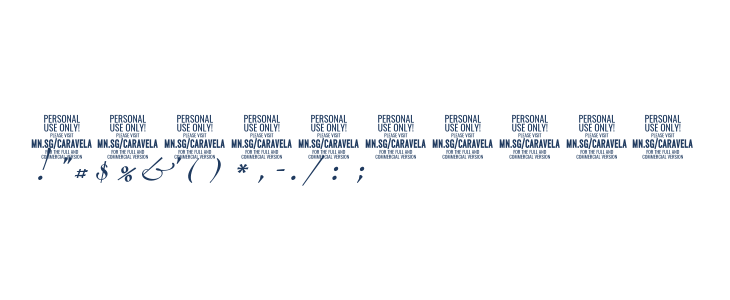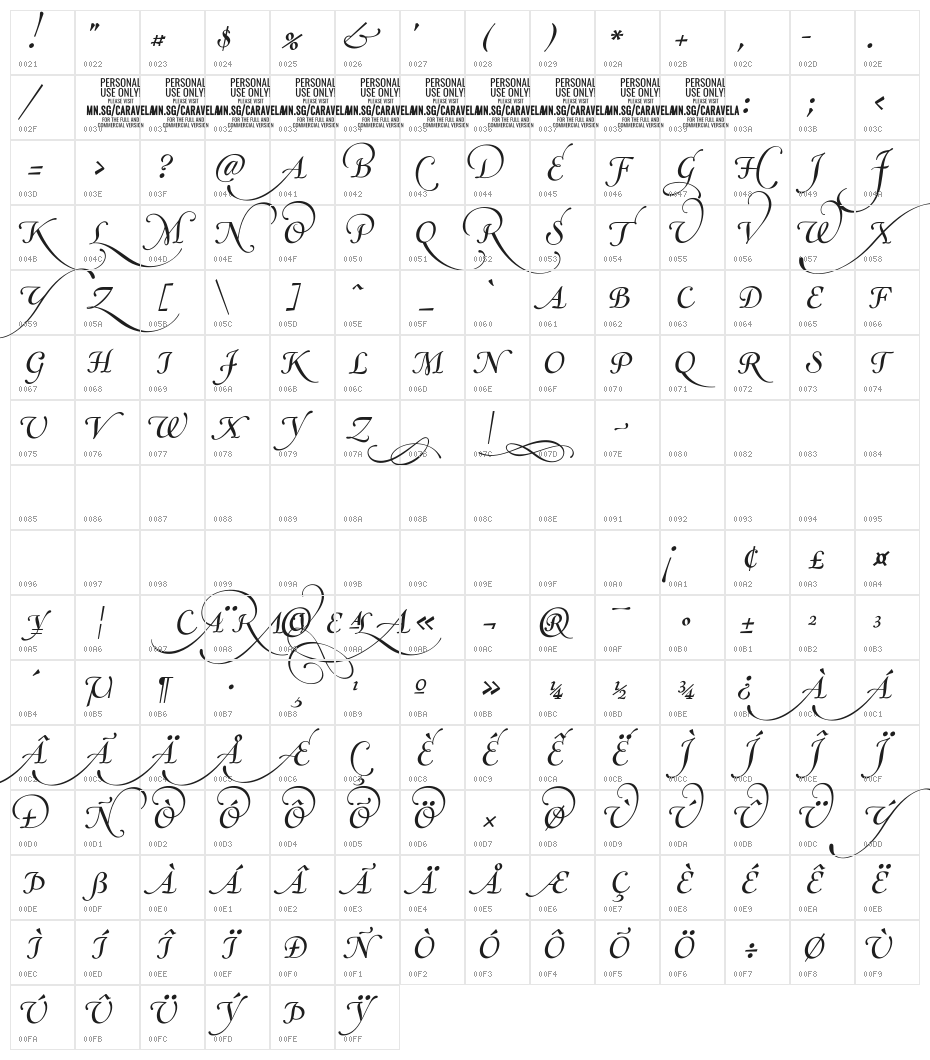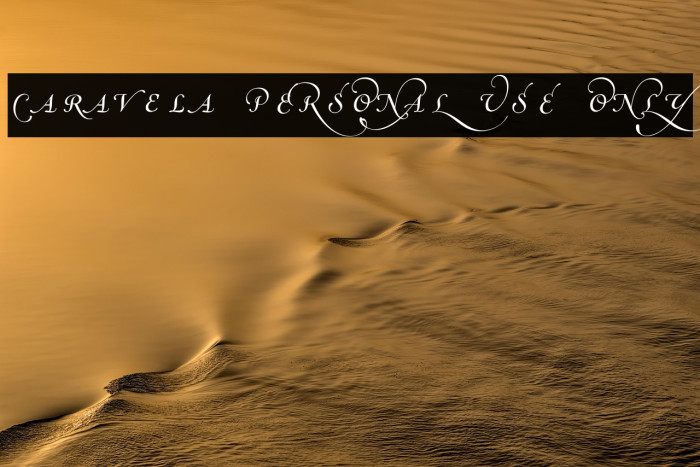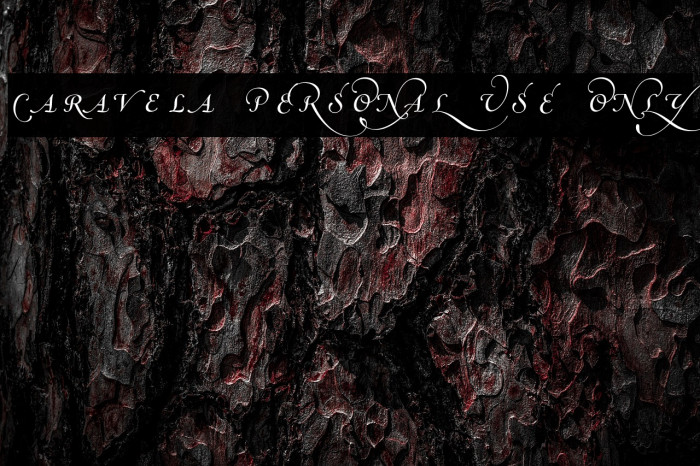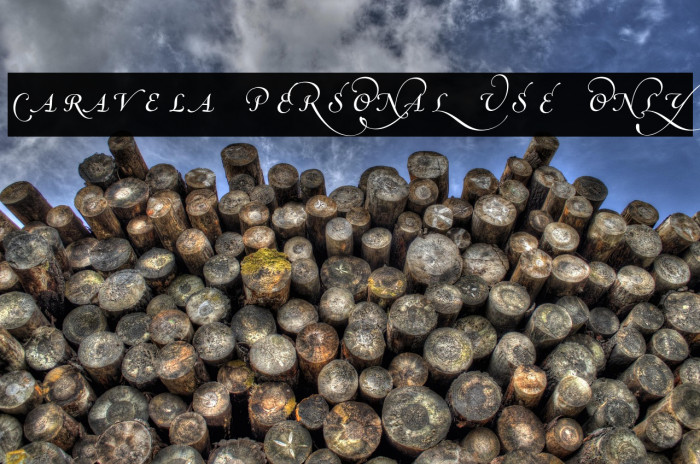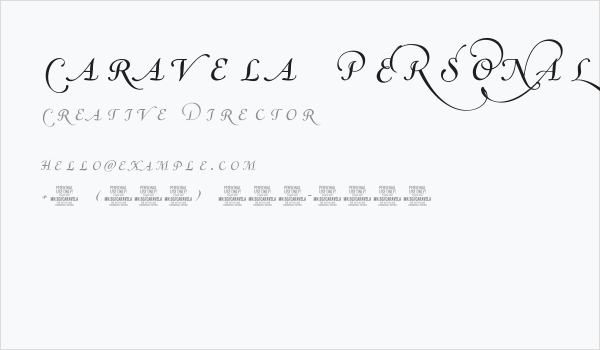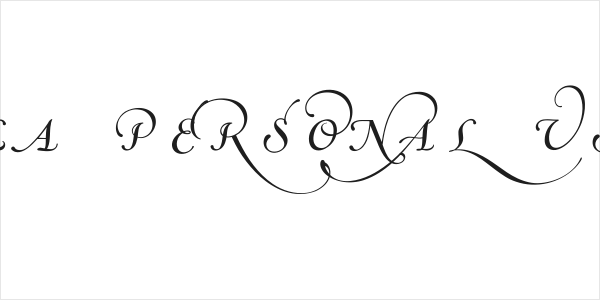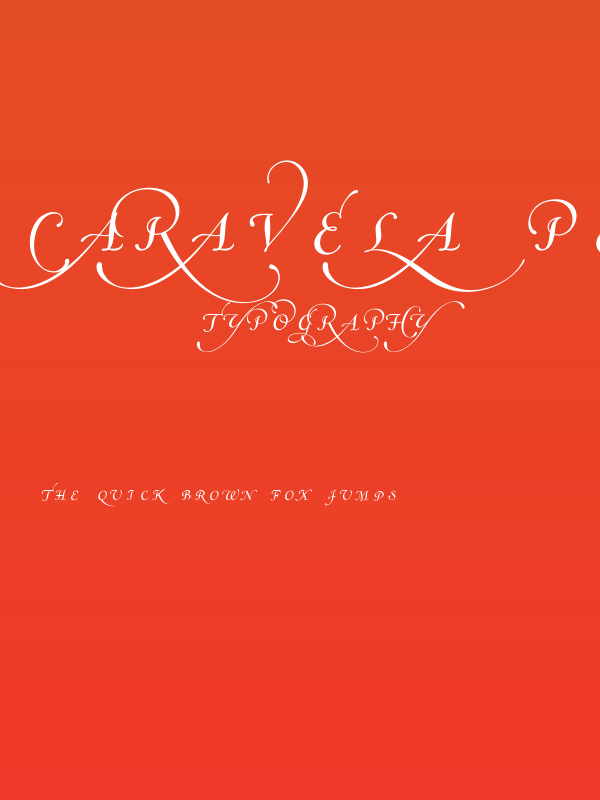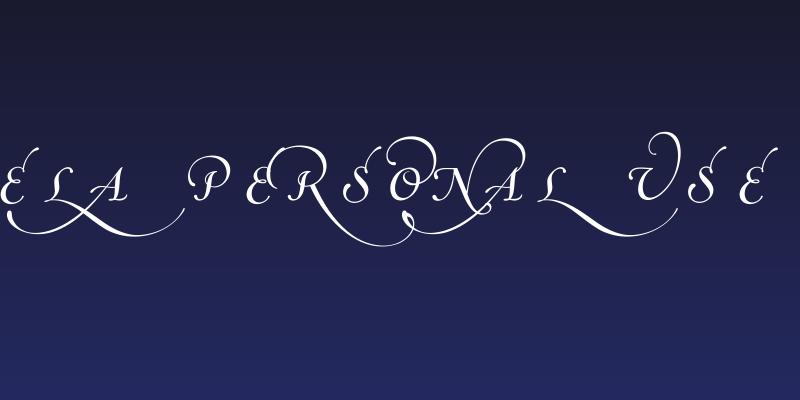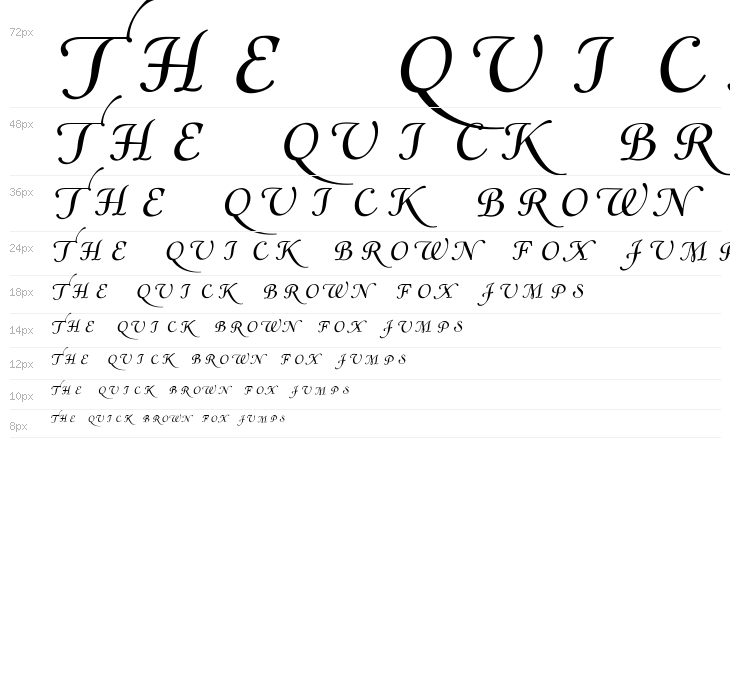
Caravela PERSONAL USE ONLY Font
Caravela PERSONAL USE ONLY Description
This elegant script font features a sophisticated and flowing design, characterized by its graceful curves and intricate details. The uppercase letters exhibit a dramatic flair with sweeping ascenders and descenders, while the lowercase letters maintain a harmonious balance with their refined and delicate strokes. The font's overall appearance is reminiscent of classic calligraphy, making it ideal for projects that require a touch of elegance and sophistication. The numerals and special characters are crafted with the same attention to detail, ensuring consistency throughout the typeface.
| Use Case | Headlines, Invitations, Branding |
| Proposed Projects | Ideal for wedding invitations, formal event programs, elegant branding, and luxury product packaging. |